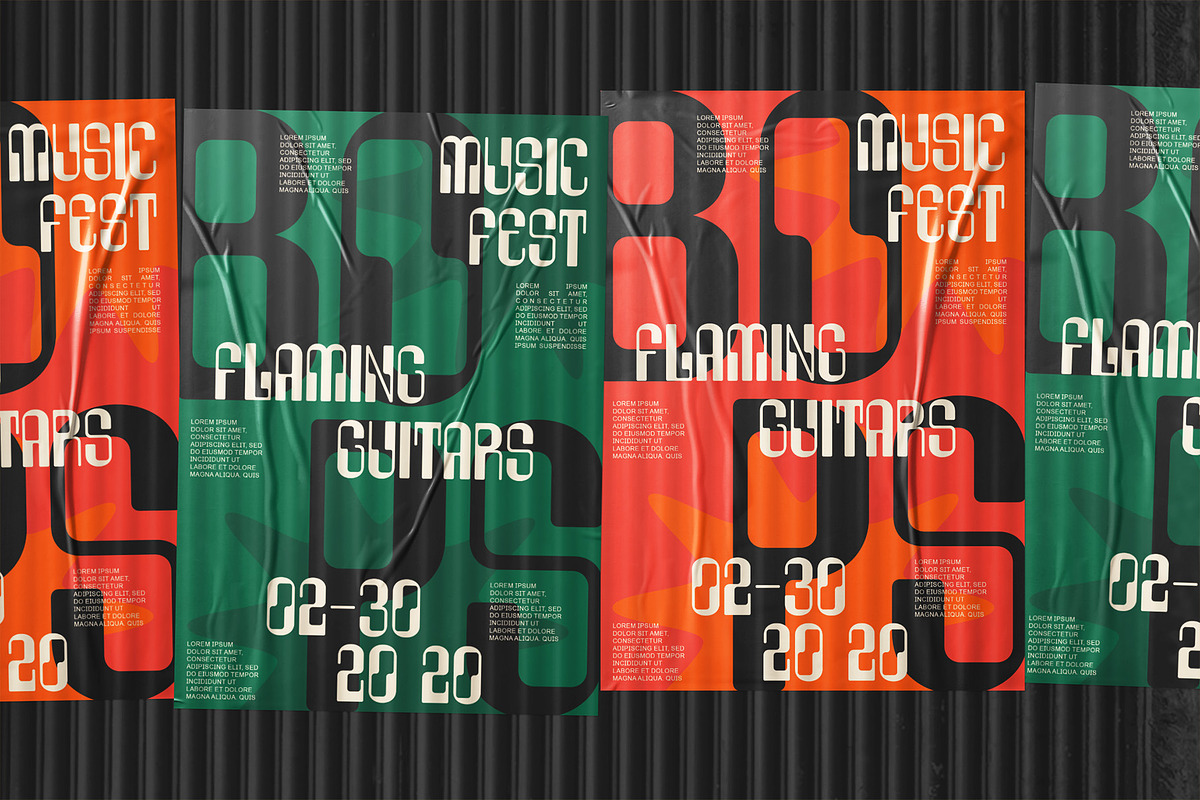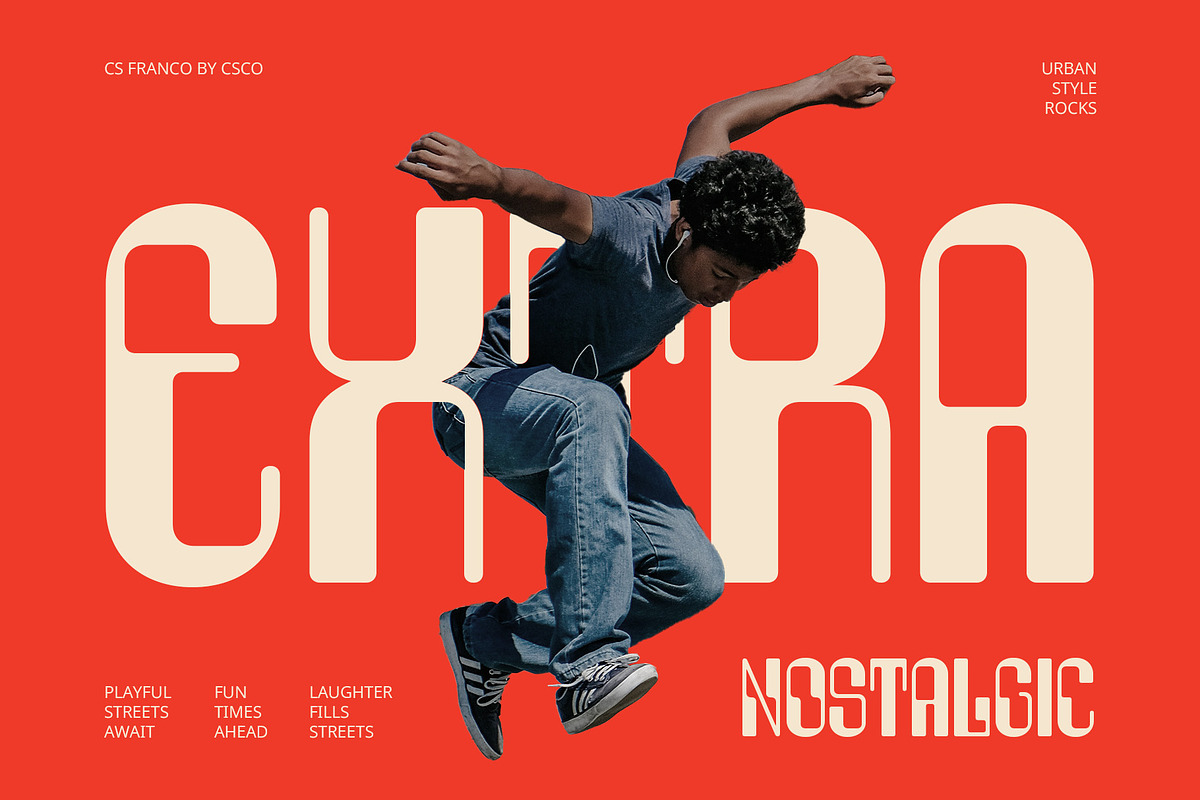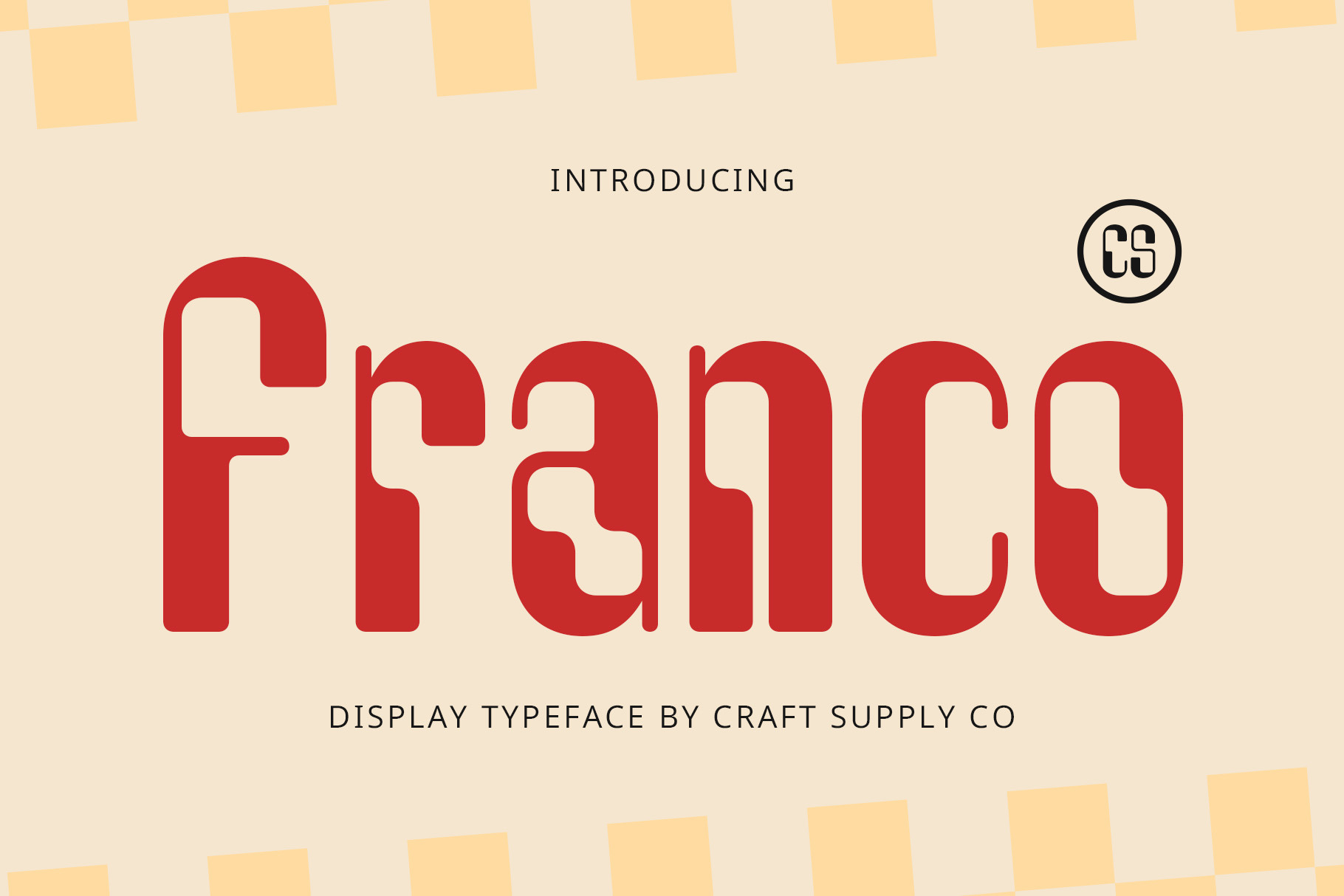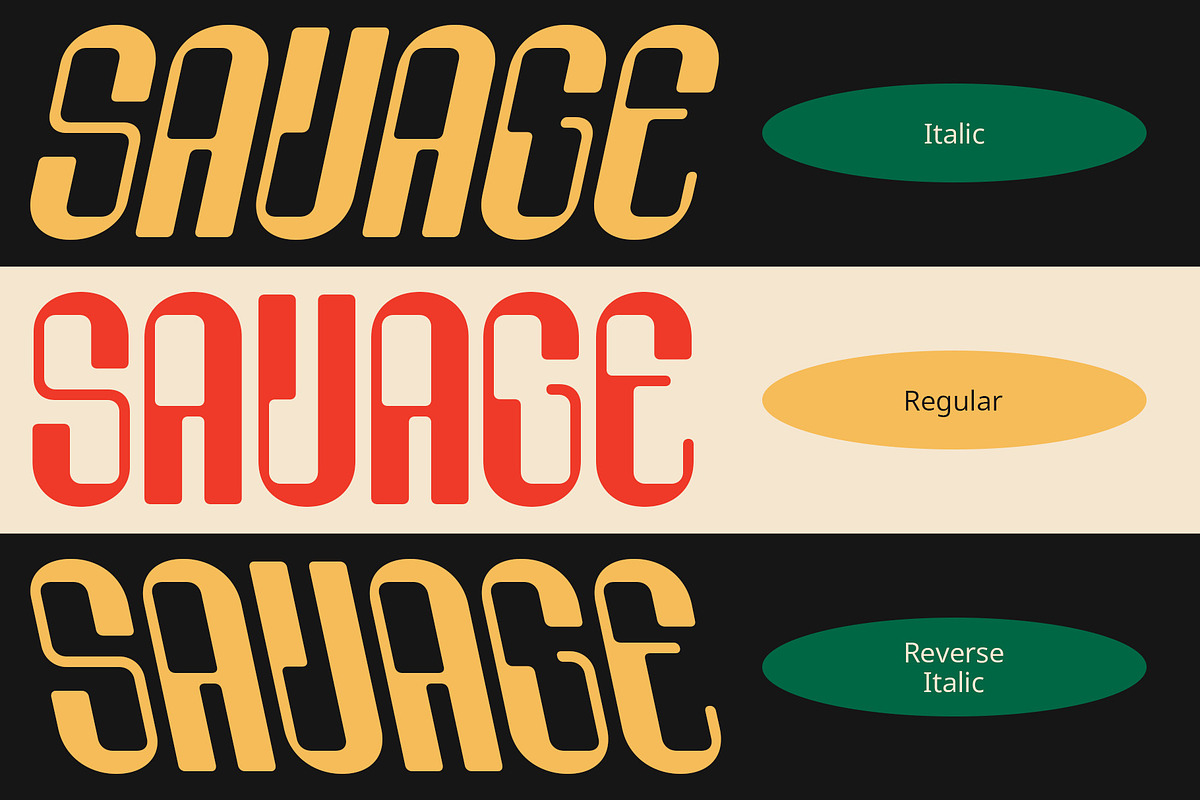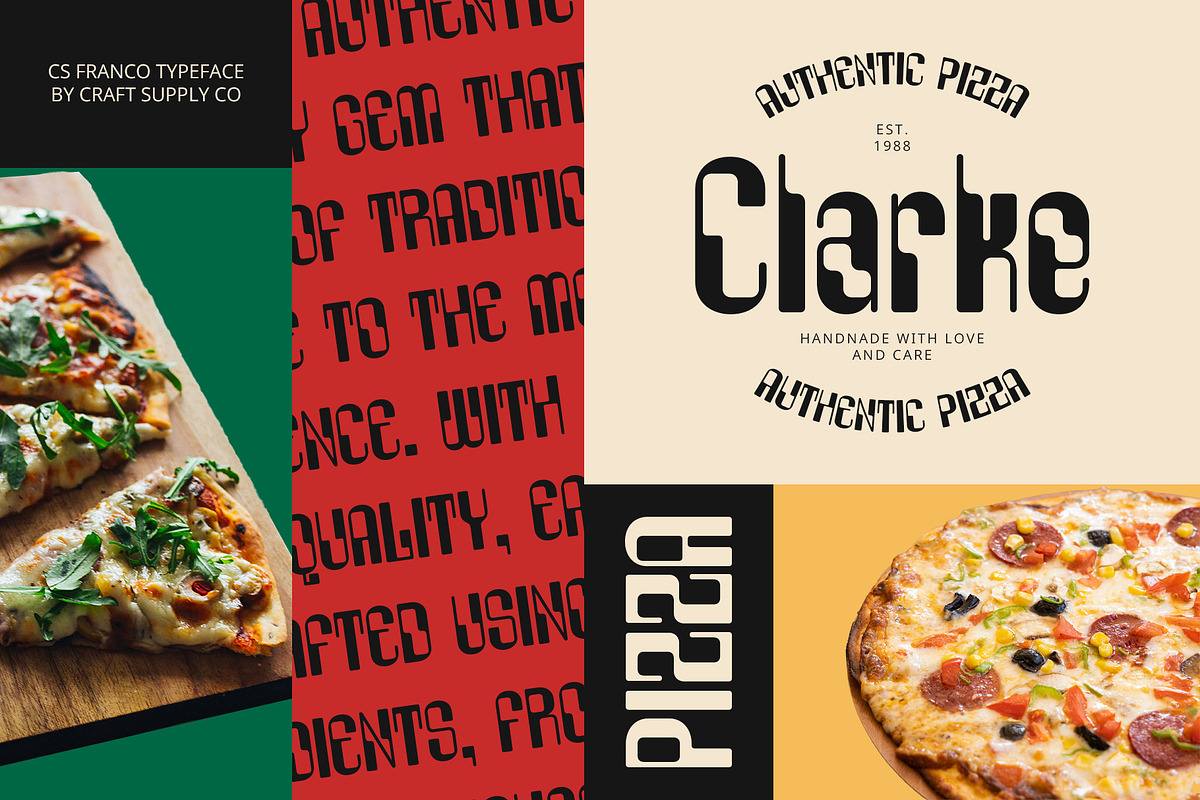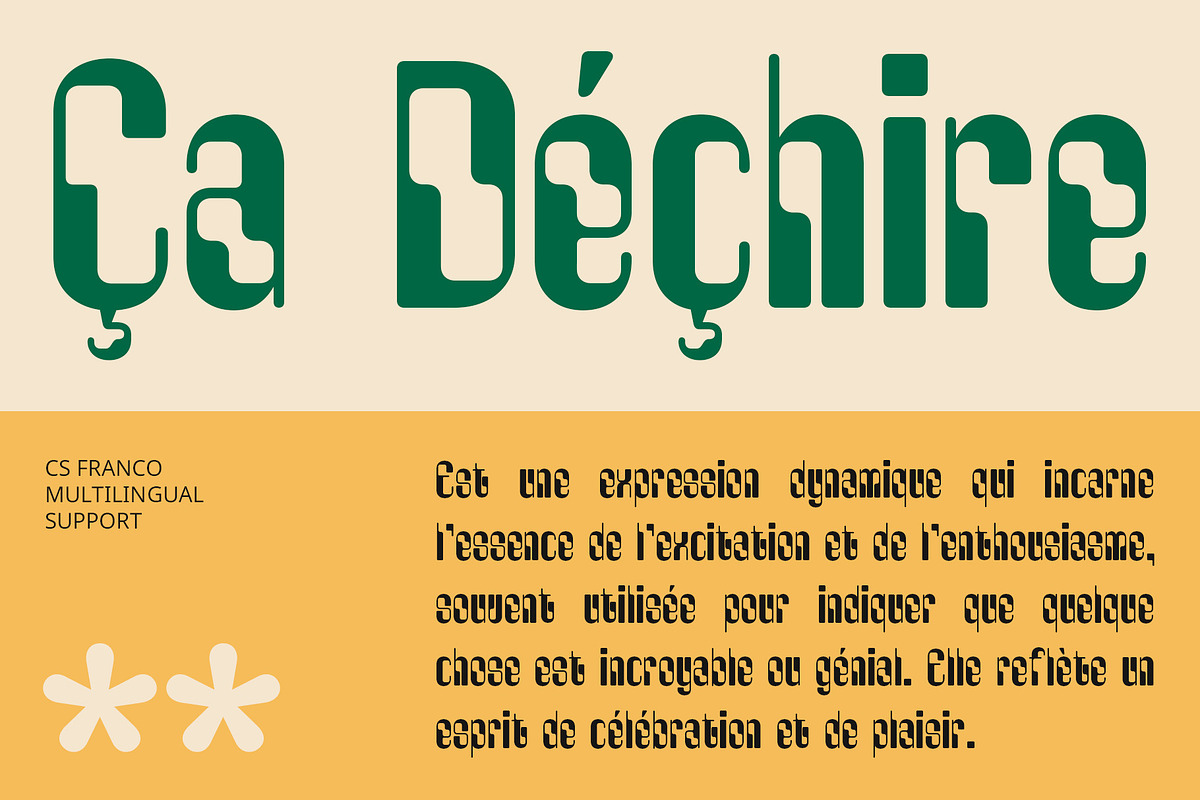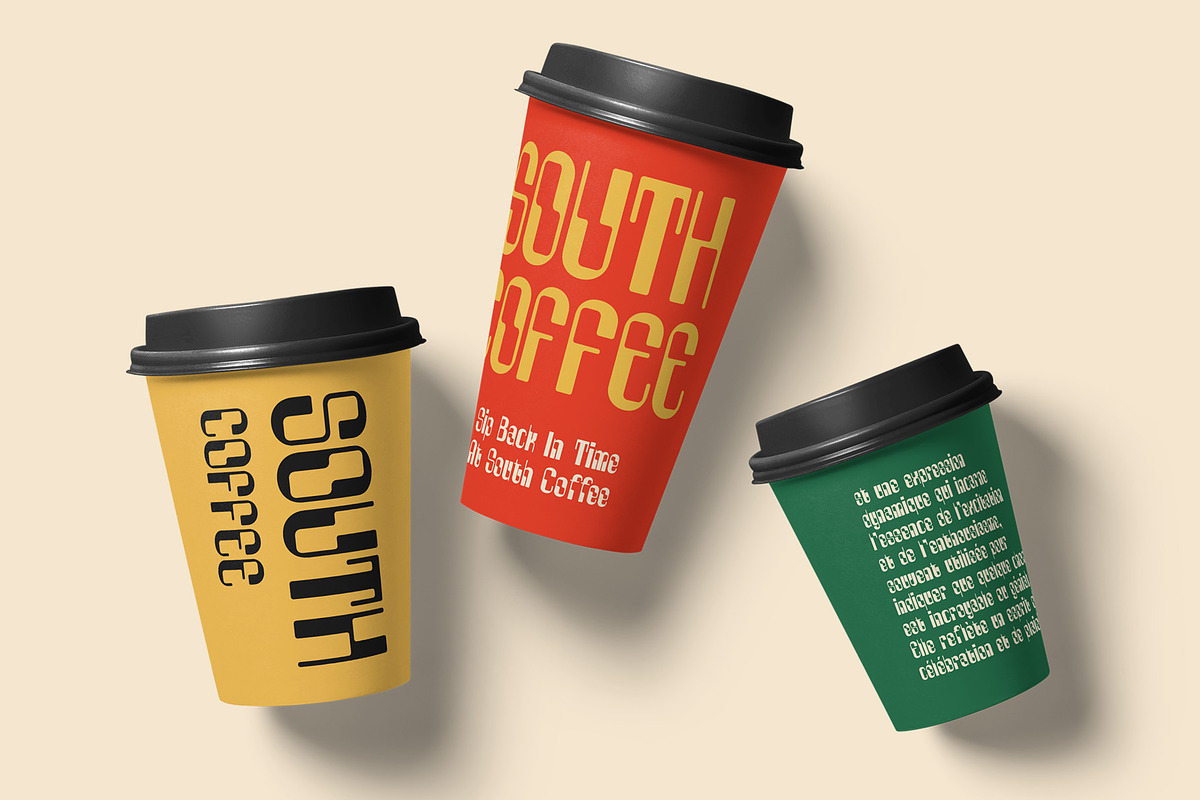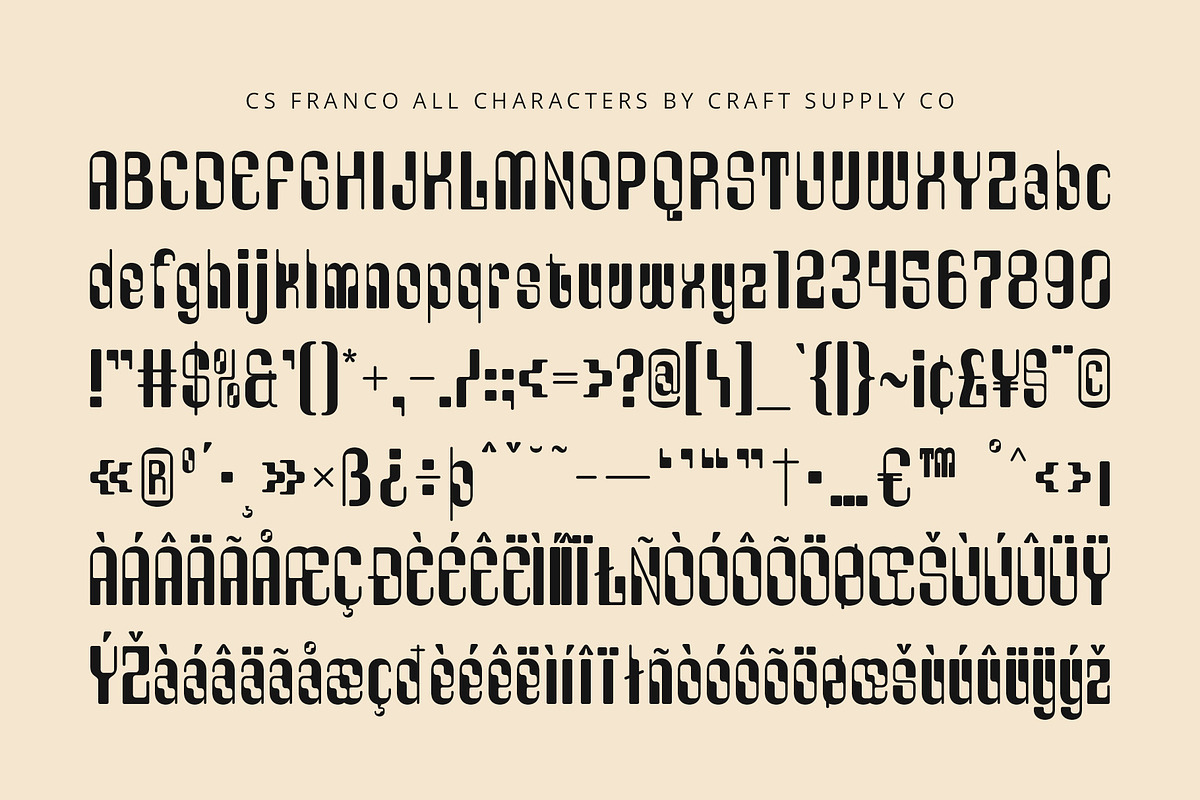
CS Franco – Display Font
CS Franco – Display Font: Funky and Cheerful Expression
Modern Display Font with Unique Shapes CS Franco is a modern display font that radiates a funky and cheerful vibe, making it an ideal choice for designs that aim to capture attention and evoke joy. Its unique shapes and eccentric characters are often asymmetrical and unconventional, infusing each letter with personality and energy. The playful design elements create a sense of movement, making it perfect for any project that seeks to engage and inspire. Whether used in titles, headlines, or branding, CS Franco adds a refreshing and dynamic quality that stands out in any context.
Bold and Playful Elements for Eye-Catching Design With bold strokes and whimsical features, CS Franco embodies a playful spirit that encourages creativity. The font’s colorful characters bring vibrancy to your designs, ensuring they are not just seen but felt. This lively aesthetic makes CS Franco especially suited for posters, event promotions, and creative branding that need to convey an energetic and fun atmosphere. Its bold and striking appearance commands attention, making it an excellent choice for visuals that aim to leave a lasting impression.